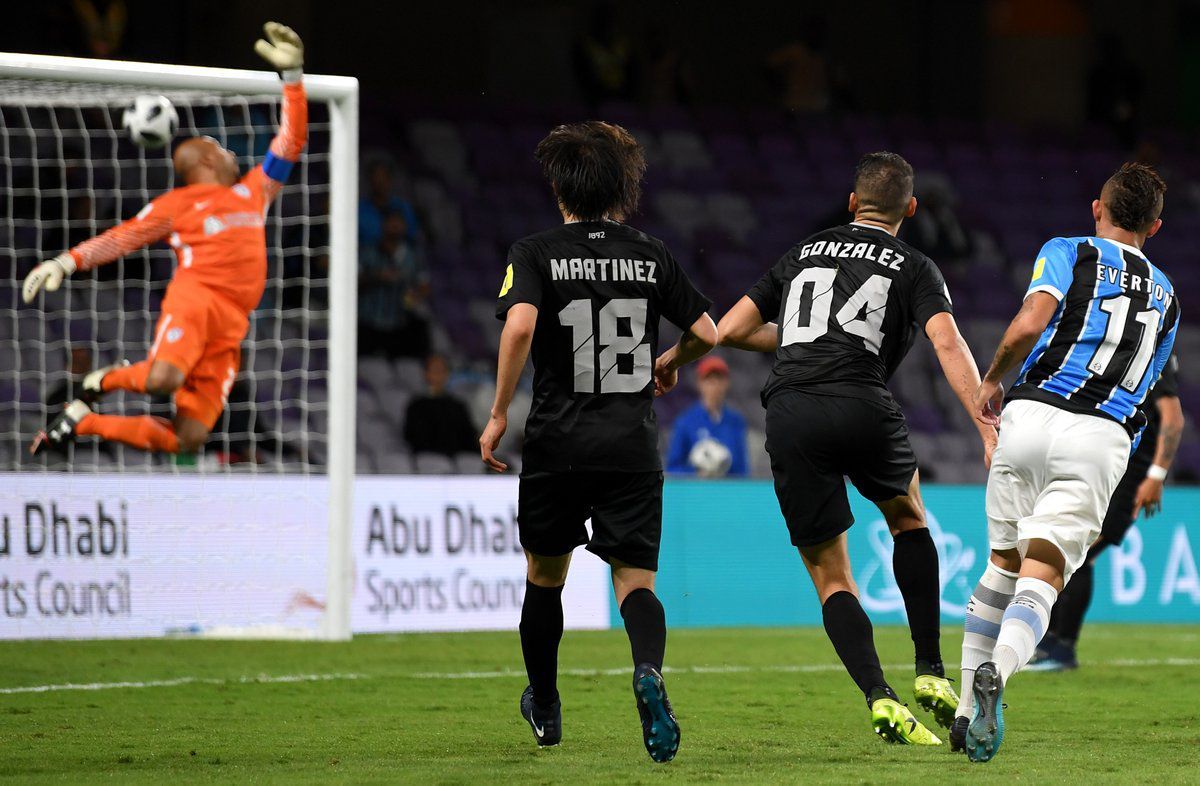
Club Pachuca's stylish font Feel the total black mexican vibe
Club Pachuca could have been eliminated by Gremio in FIFA Club World Cup semi-final last night, but they definitely won the style battle of the competition for this year. The Mexican club yesterday showed off a stunning total black kit with silver details and a special font.
Club Pachuca's numbers in the 2017 FIFA Club World Cup featured unfamiliar leading zeros on the back of their players, you can notice it on Keisuke Honda's back. The numbers and font's cut style was also different to the one the club usually uses, likely because FIFA prohibited them to use their extraordinary Liga MX typeface.